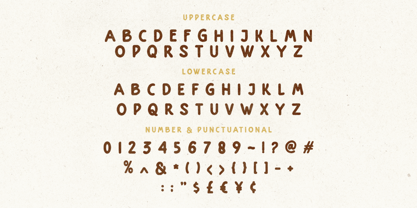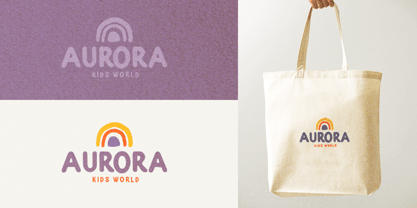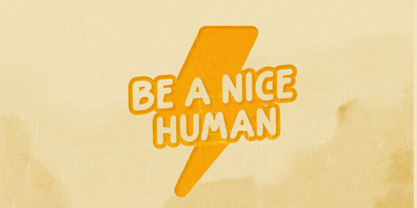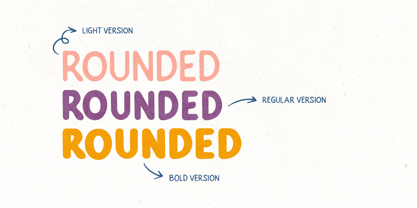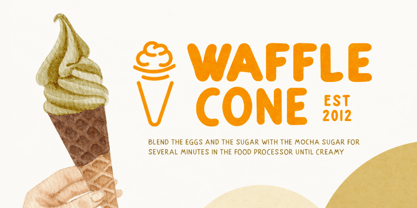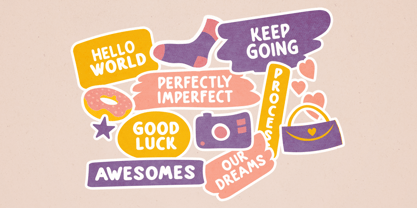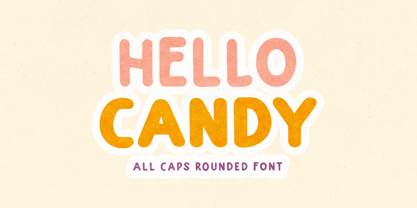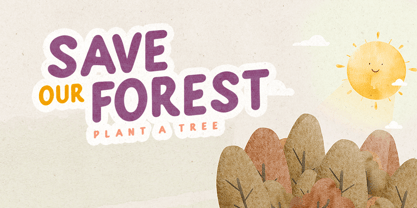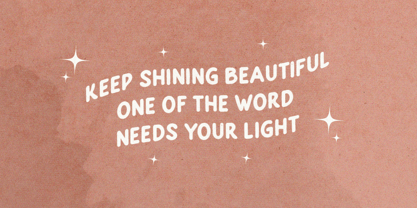
Hello Candy
The Hello Candy Font Family was designed by Sarid Ezra, Dzikrul Aulia and published by Bale Type. Hello Candy contains 3 styles and family package options.
Hello Candy is a cute and rounded all caps sans serif font family. This fonts is so friendly and fun that can be use for any purpose, such as as logo, brand and quotes. With difference uppercase and lowercase that you can combine to get more stunning designs. Hello Sweety also support multi language!